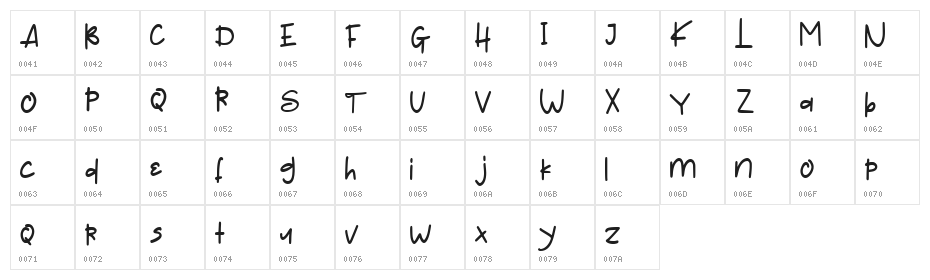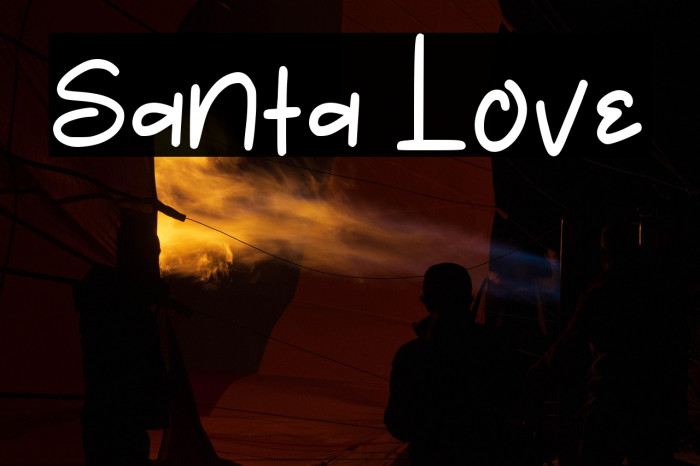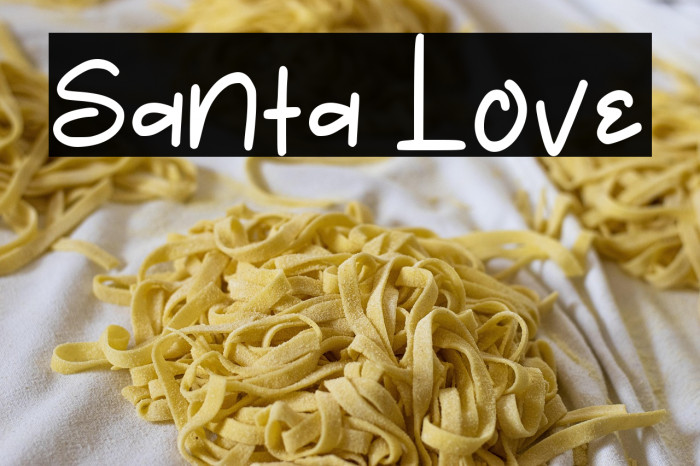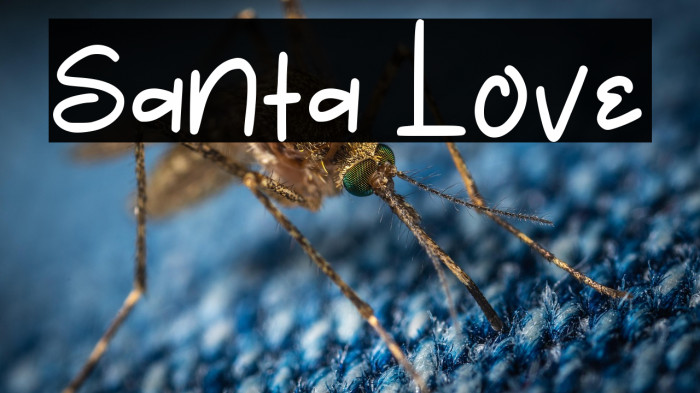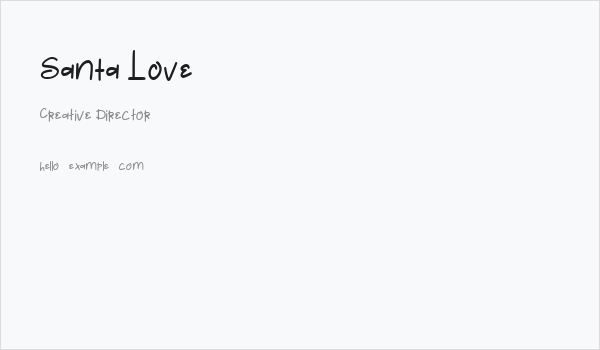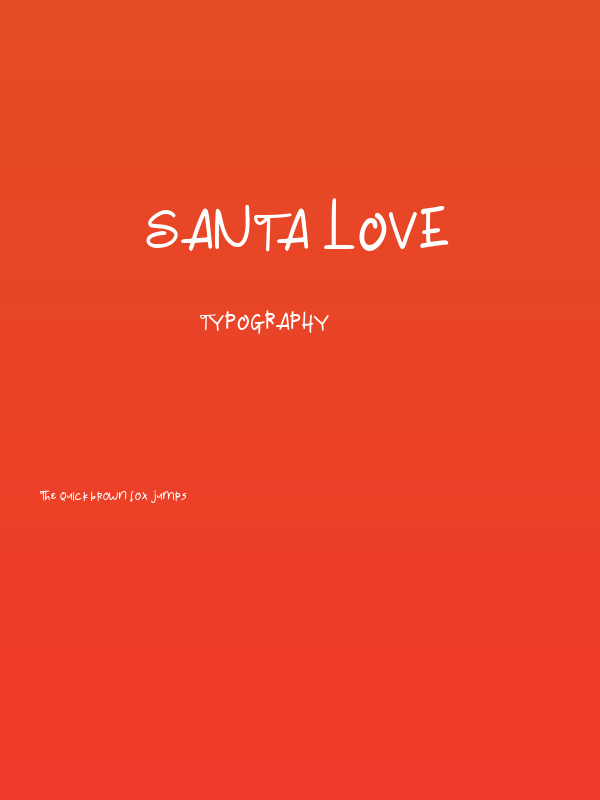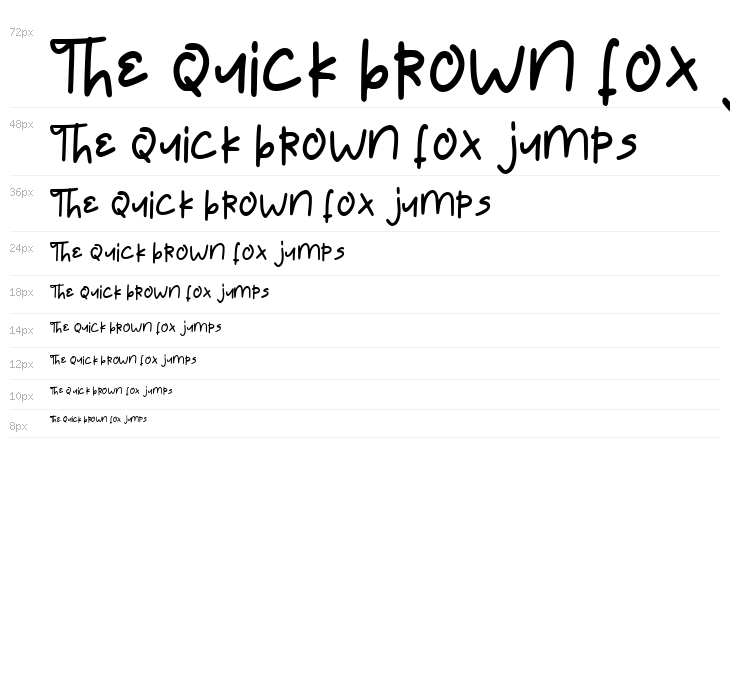
Santa Love Font
Santa Love Description
A playful, handwritten font with a casual and friendly appearance, featuring uneven strokes and a slightly irregular baseline.
| Overall Style | Casual, Friendly |
| Proposed Projects | Greeting cards, children's books, informal invitations. |